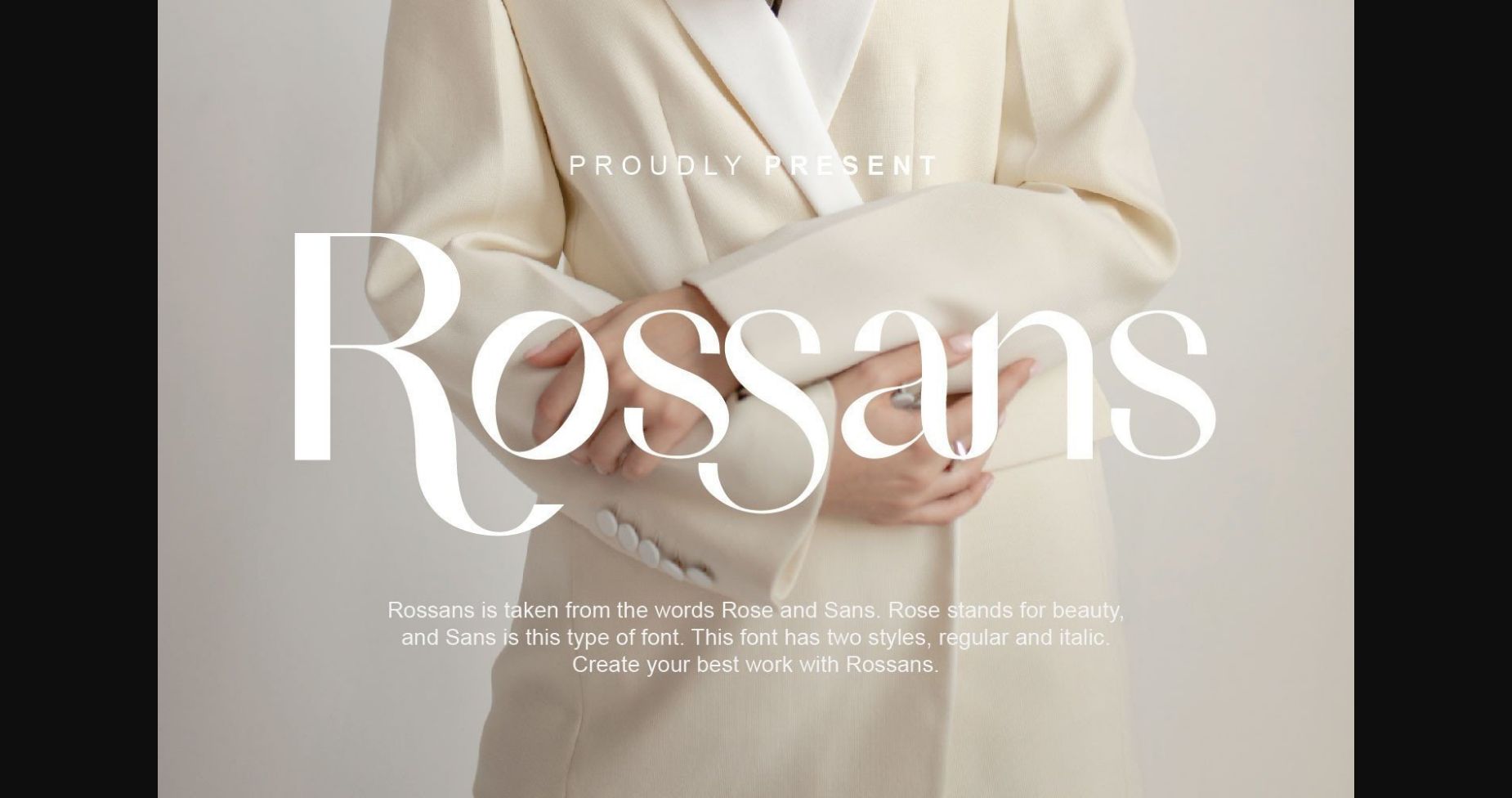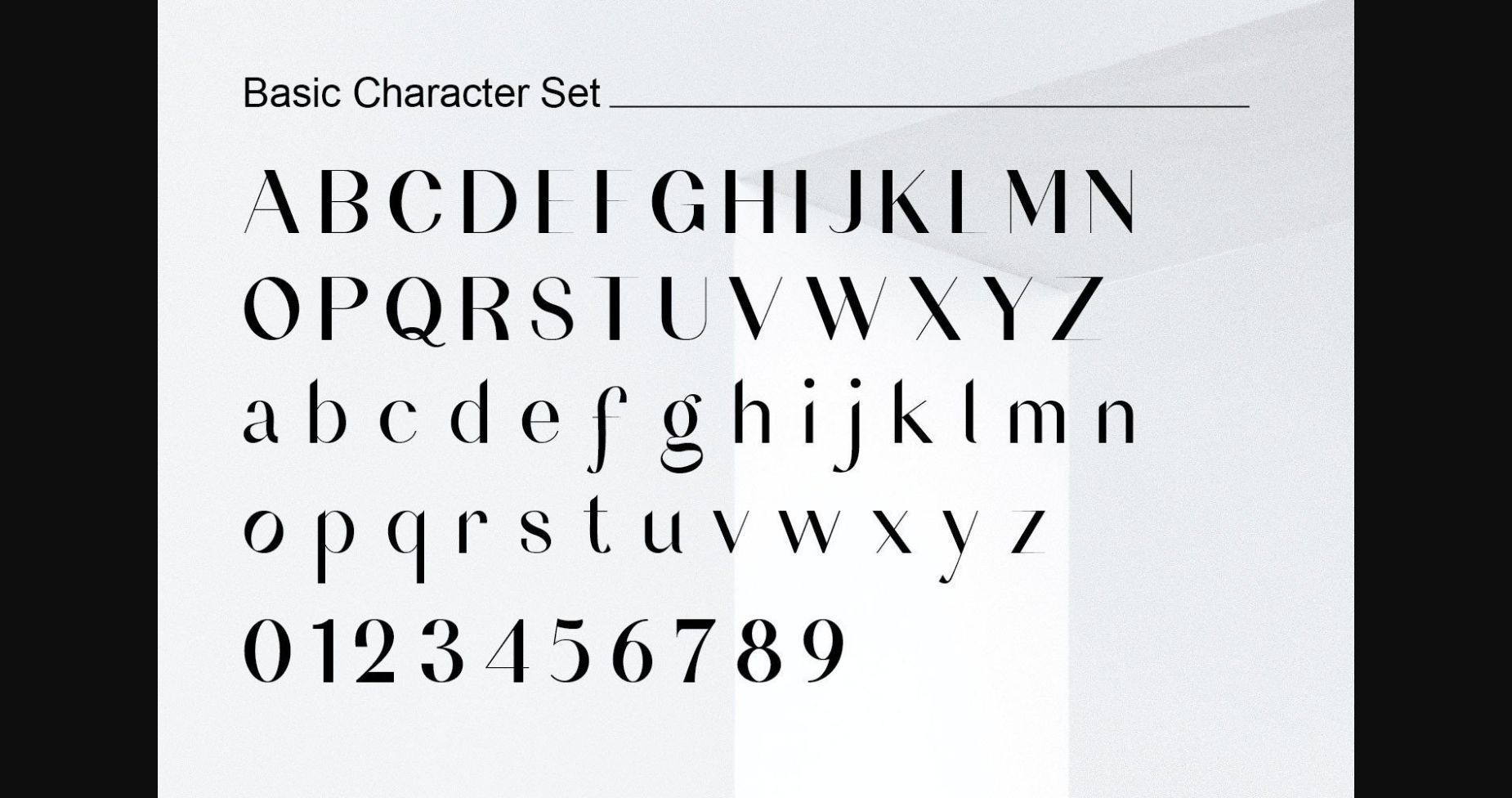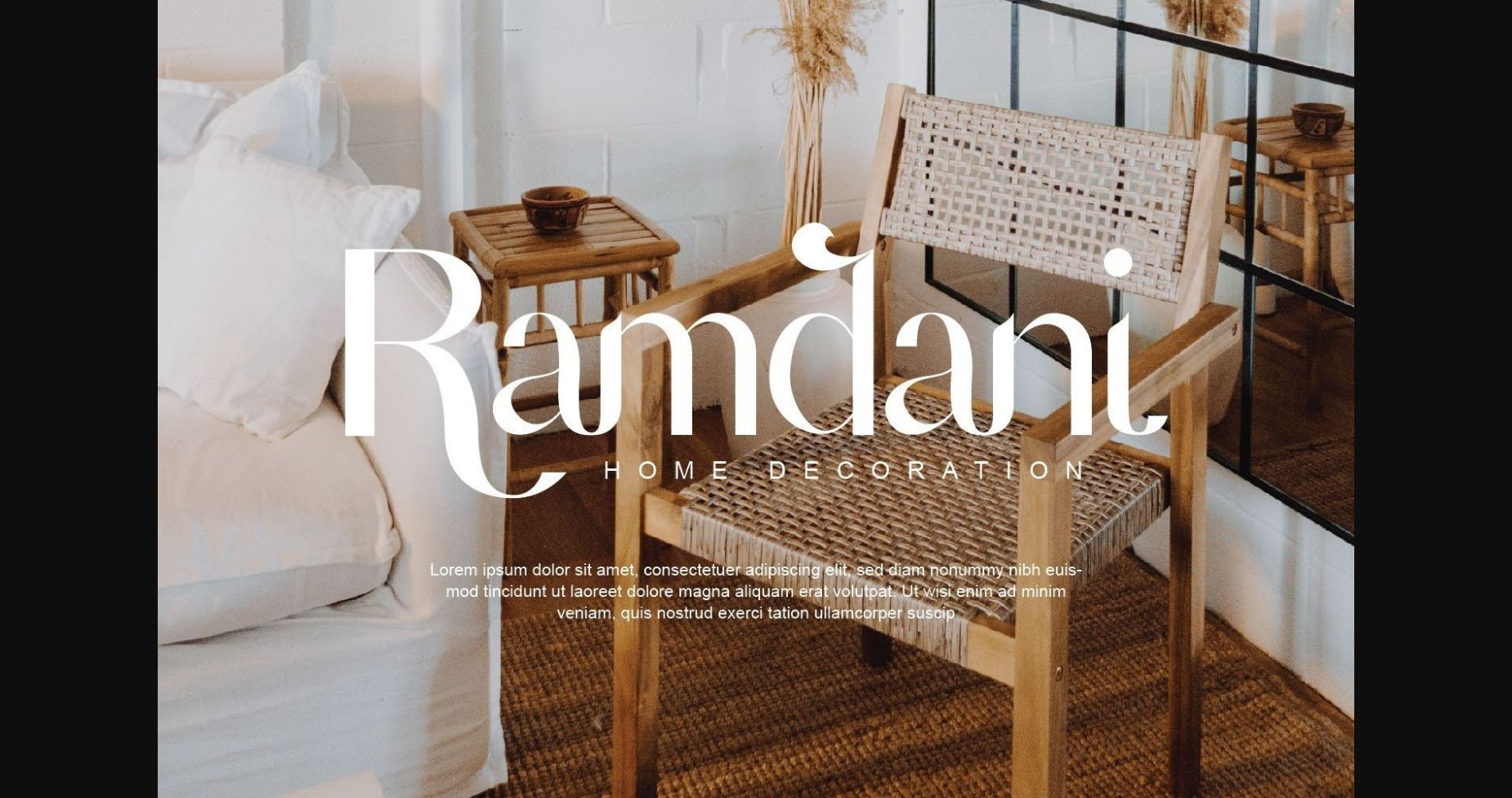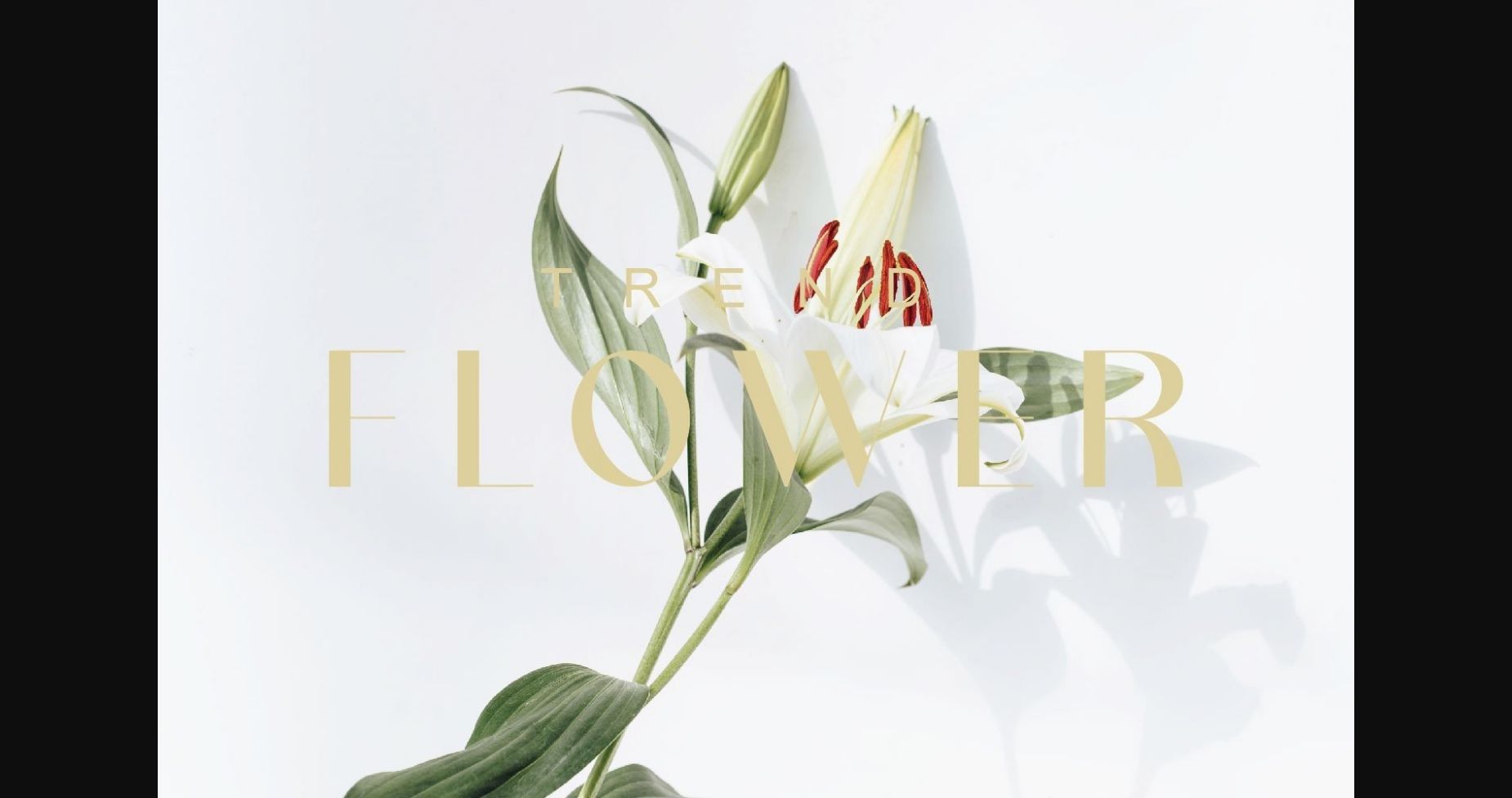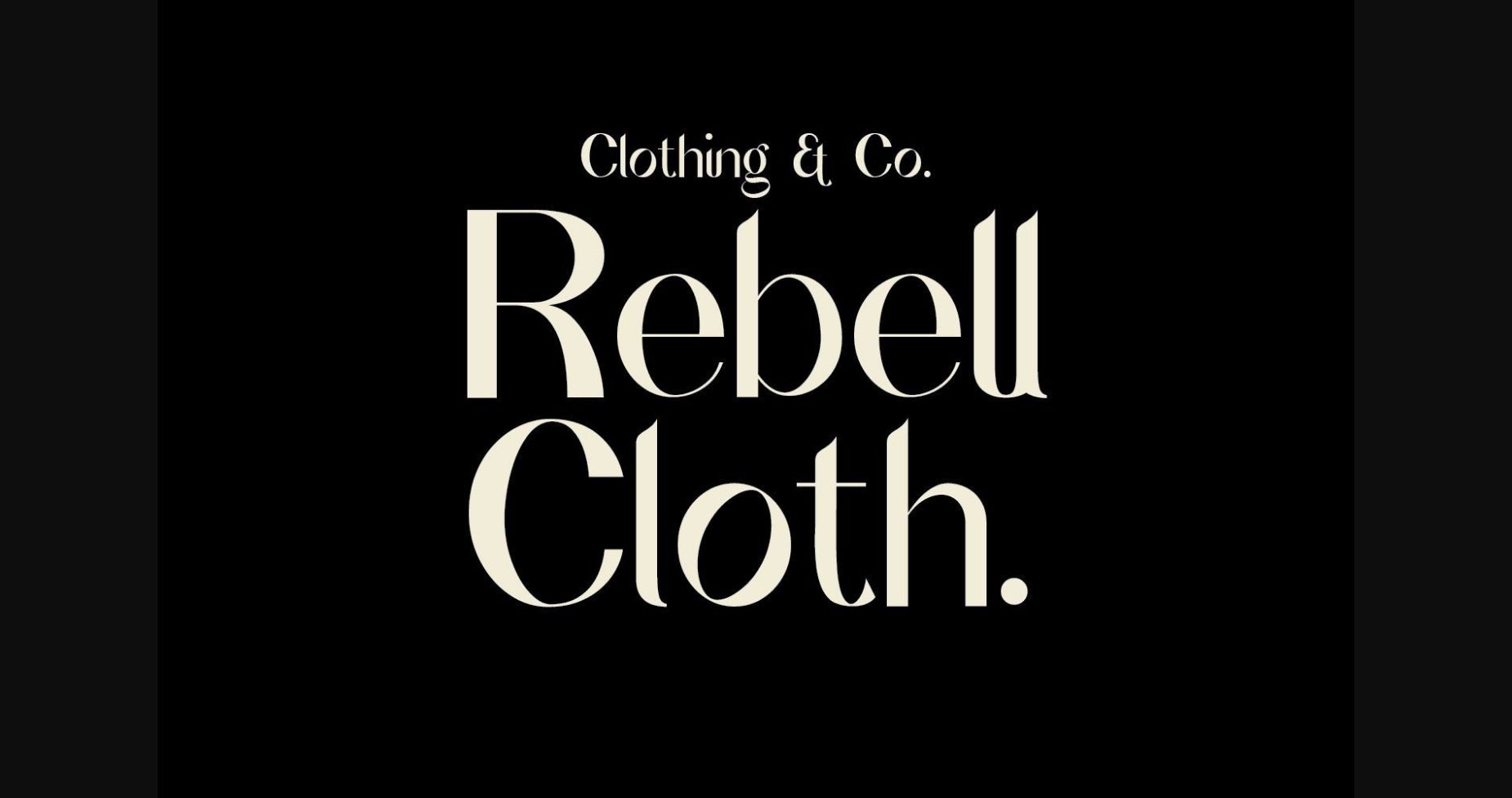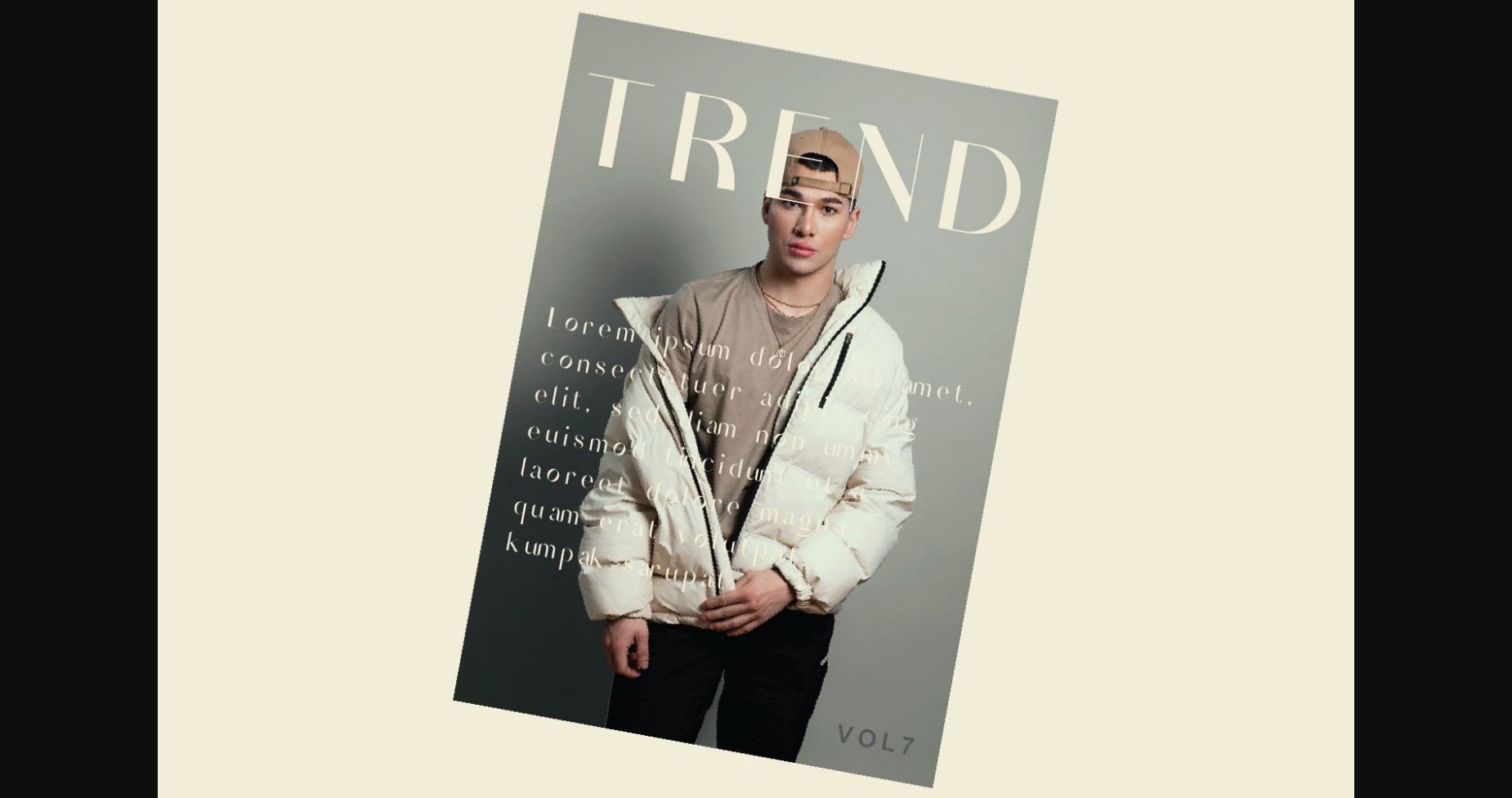
About Rossans Font
Rossans is a stylish and fashionable sans serif font. Trendy yet elegant, this font will elevate each of your creations. This font is PUA encoded which means you can access all of the glyphs and swashes with ease!